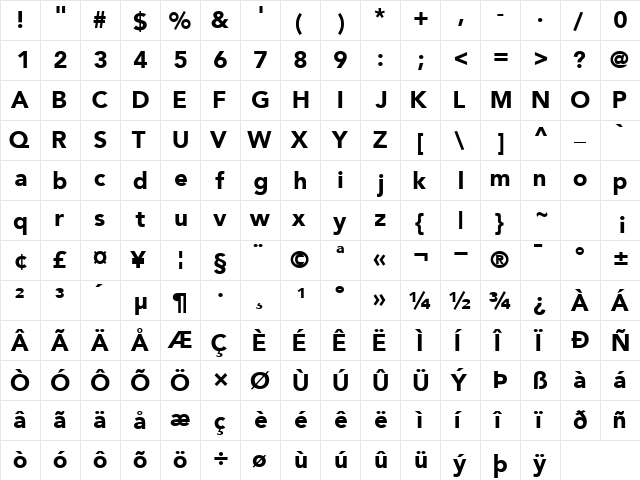
ExpoBlackSSK Regular Font Preview
ExpoBlackSSK Regular
Design Context for ExpoBlackSSK Typeface
ExpoBlackSSK offers clean, dependable letterforms without strong stylistic allegiance, making it a practical choice for designers who need flexibility.
Pro Tip: Use ExpoBlackSSK in both headline and body roles to test its range before committing to a single application.